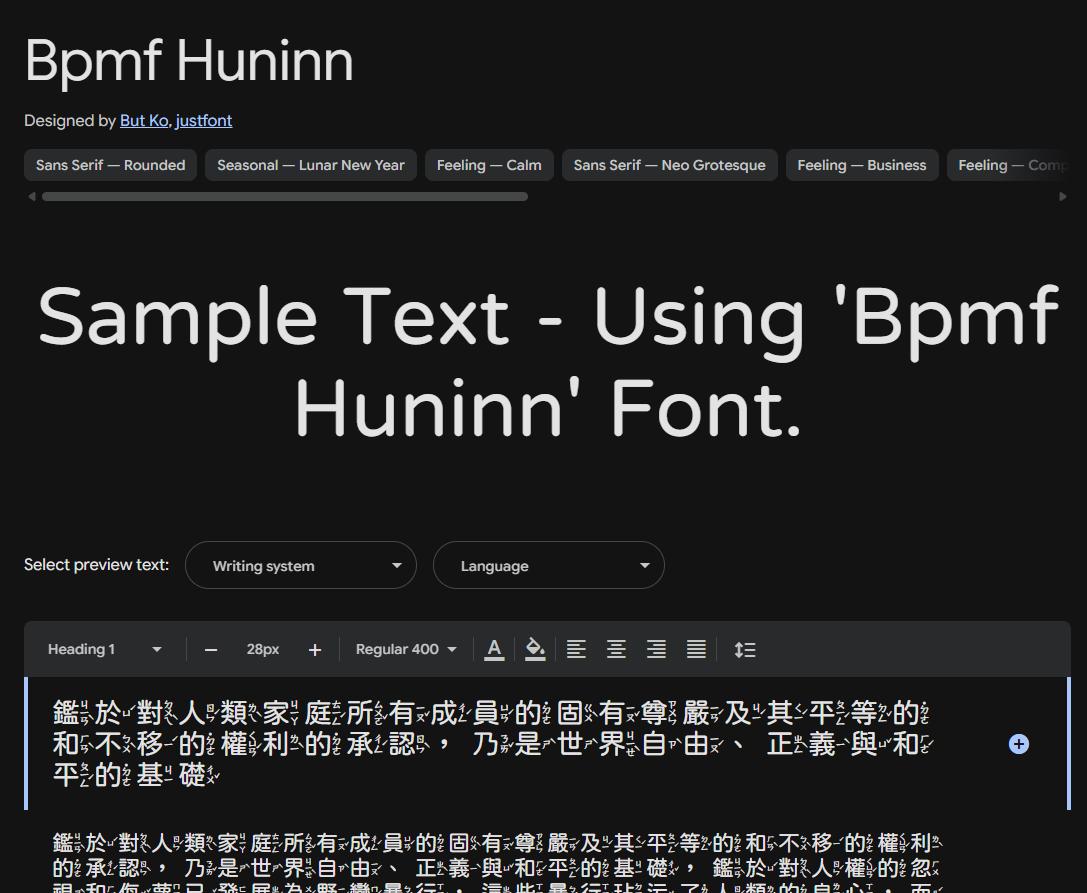
Bpmf Huninn, a singular-style derivative meticulously engineered by But Ko from justfont's seminal Huninn typeface, represents a sophisticated synthesis of pedagogical utility and contemporary CJK typography. By embedding Bopomofo phonetic indicators directly into the font's glyph metrics, this open-source project leverages the soft-edged, geometric skeleton of the original rounded Gothic aesthetic to achieve optimal optical balance between complex Hanzi strokes and side-car phonetic annotations. Technically optimized for automated typesetting workflows, the typeface utilizes precise OpenType positioning to ensure that linguistic legibility is maintained within its friendly, modern visual framework, effectively democratizing high-quality educational design through its SIL Open Font License framework while honoring the structural integrity of its "粉圓" predecessor.
The Bpmf Huninn font family functions as a sophisticated typographic hybrid, synthesizing the structural clarity of a Neo Grotesque Sans Serif with the approachable softness of Rounded stroke terminals to project a Business-ready image of Competent stability. While its geometric skeleton provides a Rugged and Loud visual impact suitable for high-contrast Vintage displays, the typeface's Humanist design nuances infuse it with a Calm, organic flow that transitions seamlessly into Seasonal Lunar New Year aesthetics. By meticulously balancing optical kerning and glyph proportions, Bpmf Huninn achieves a unique dual-identity: it maintains a professional, disciplined rigor for corporate environments while simultaneously embracing a Childlike, Playful, and Happy spirit that resonates in creative, youth-oriented media. This versatile character set, derived from open-source foundations, ensures that every composition benefits from a harmonious blend of modern technical precision and an enduringly warm, accessible atmosphere.
Bpmf Huninn, characterized by its soft terminal rounding and integrated phonetic ruby characters, is fundamentally ill-suited for high-stakes corporate environments, luxury branding, or technical documentation requiring rigorous typographic hierarchy. Because the typeface is a monolinear derivative of the Huninn project optimized for pedagogical clarity rather than authoritative gravitas, its low-contrast strokes and playful geometry undermine the perceived stability essential for legal contracts or high-end financial reporting. Furthermore, the mandatory vertical clearance required for its embedded Bpmf symbols creates significant challenges in space-constrained micro-typography, such as pharmaceutical ingredients lists or dense architectural notation, where the lack of multiple weights prevents the establishment of a nuanced semantic hierarchy through varied stroke thickness.
To enable Zhuyin characters, select the specific font variant from your character menu and ensure OpenType features are active in your software settings. By utilizing specific Unicode ranges and OpenType 'vert' or 'vkrn' tables, the rendering engine automatically positions the ruby characters alongside the base glyphs.
You can switch between standard characters and Bopomofo versions by selecting the appropriate font variant within your application's character panel. Toggling between these styles often involves the 'hist' or 'ss01-ss20' OpenType stylistic sets which swap out standard glyphs for their annotated counterparts.
The font is fully optimized for vertical layout settings commonly used in traditional Chinese publishing and signage. The font's 'vhea' (Vertical Header) and 'vmtx' (Vertical Metrics) tables are calibrated to maintain consistent baseline alignment during 90-degree transformation.
Spacing can be adjusted using the tracking and kerning tools in your design software or by modifying the ruby text attributes. Precise micro-adjustments are controlled via the 'dist' (Distances) feature in OpenType, which regulates the sidebearings between the phonetic symbols and the ideographic Hanzi.
This font is designed with vector-based paths that ensure crisp edges and legibility even at professional offset printing resolutions. The integration of PostScript Outlines (CFF) within the OpenType wrapper minimizes rasterization artifacts at high DPI settings, preserving the delicate strokes of the Zhuyin.
To change colors separately, you must convert the text to outlines or use a layered font version if the software does not support multi-color glyphs. Advanced SVG-in-OpenType technology now allows for embedded color layers, though most designers still rely on manual path separation for CMYK color gamut control.
The font includes a comprehensive character set covering the Big5 standard and commonly used modern Traditional Chinese radicals. It adheres to the ISO/IEC 10646 standard, ensuring that over 13,000 glyphs maintain structural integrity across diverse regional encoding requirements.
Ensure that the Adobe World-Ready Composer is active in the Paragraph panel to correctly interpret the phonetic positioning data. Alignment discrepancies are often resolved by adjusting the 'vpal' (Proportional Alternate Vertical Metrics) settings to compensate for the specific bounding box widths of the Bopomofo symbols.
For clear legibility, it is recommended to keep the main character size at 12pt or larger so the Zhuyin remains readable. At sizes below 10pt, the optical scaling features of modern variable fonts become crucial to prevent the fine strokes of the phonetic symbols from disappearing due to ink bleed.